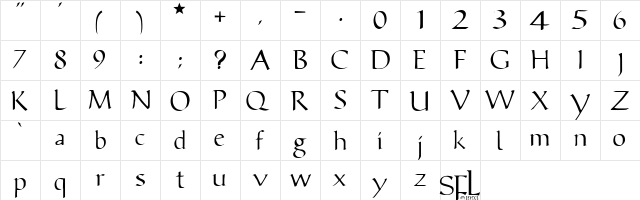
Publius Regular Font Preview
Publius Regular
Publius Regular Font Details
Design Context for Publius Typeface
Publius takes a measured approach to typography — its balanced proportions and neutral character make it a reliable workhorse for both digital and print work.